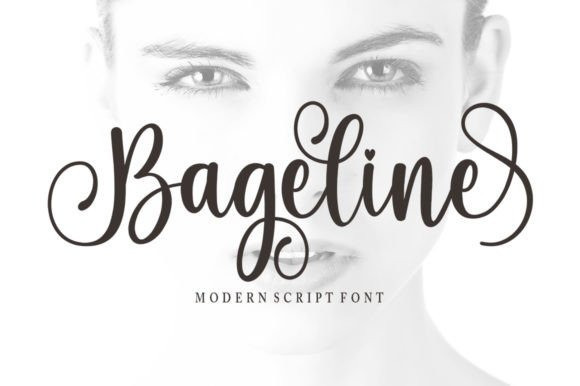
Bageline Font
Bageline Calligraphy Font is a fun and friendly handwritten font. Use it to turn any design idea into a true standout. Get inspired by its unique charm and create lovely designs.